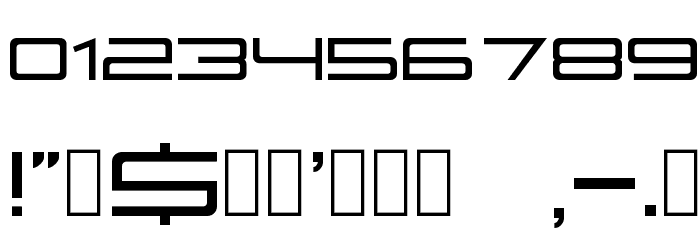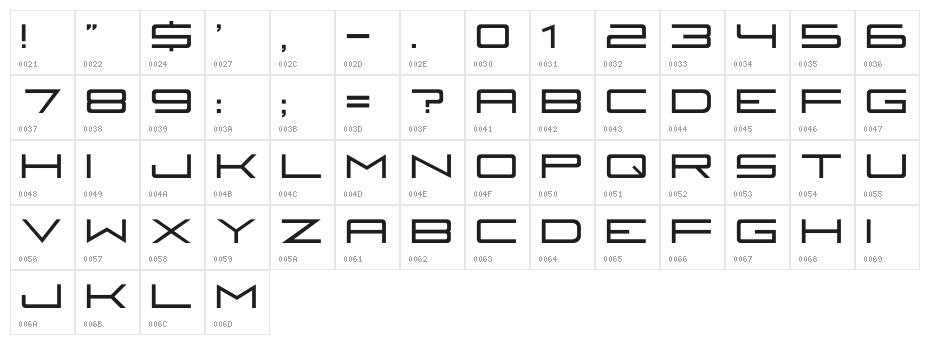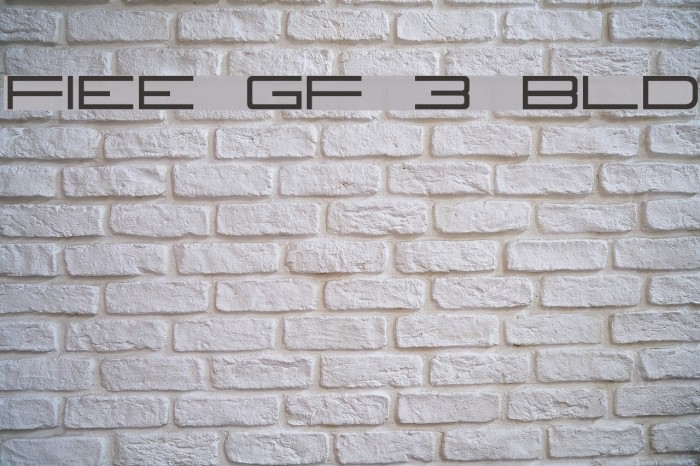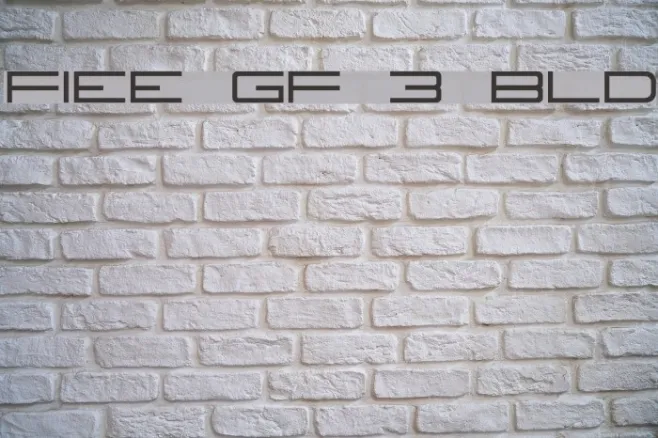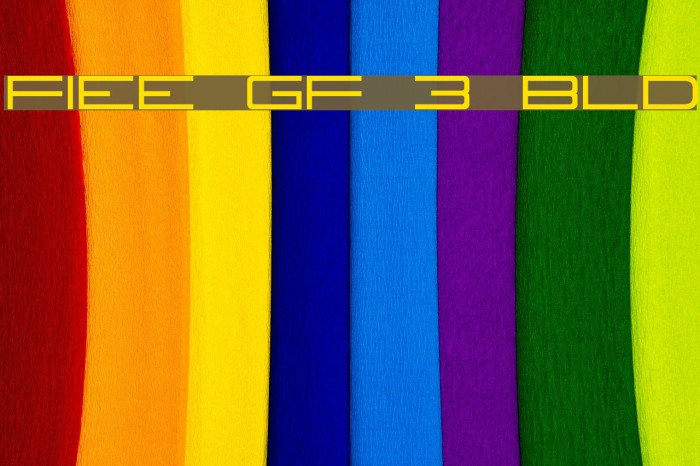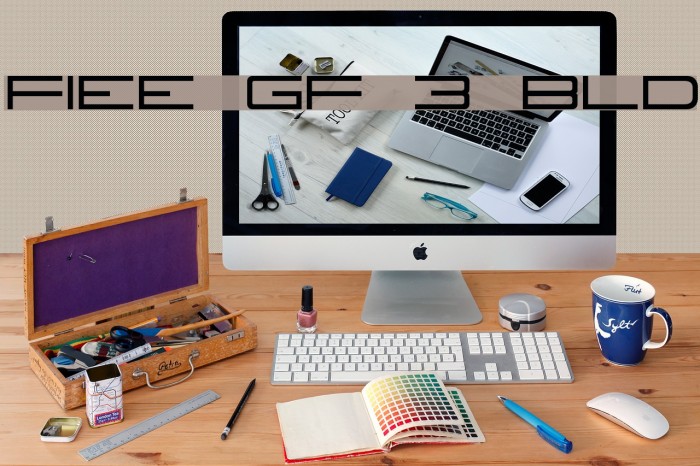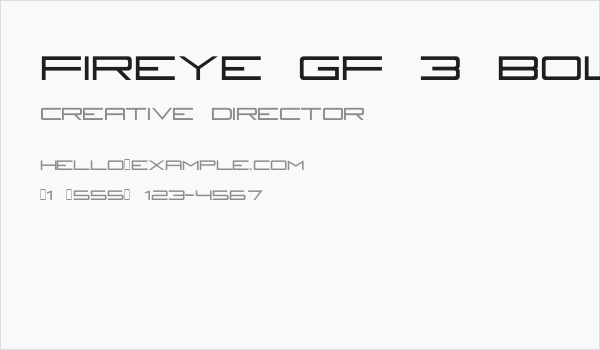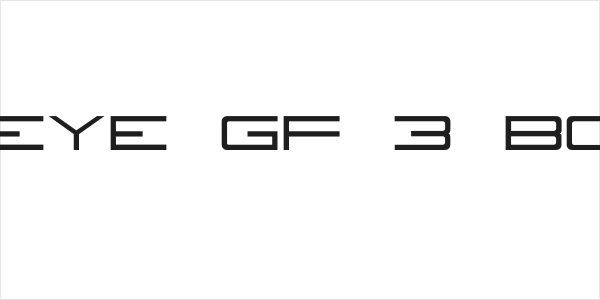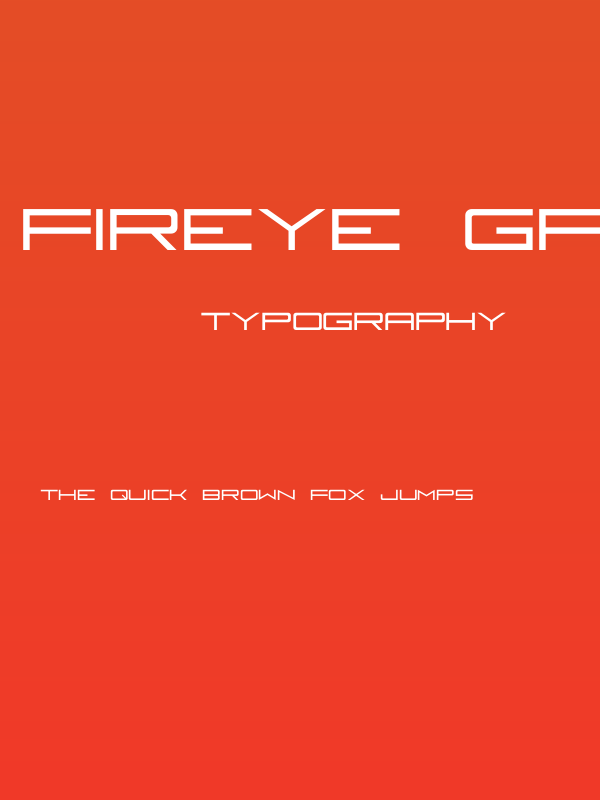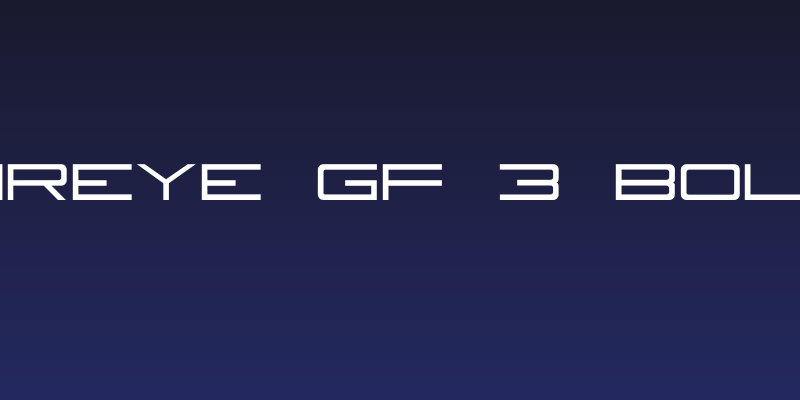
Fireye GF 3 Bold Font
Fireye GF 3 Bold Description
This font features a futuristic and geometric design, characterized by its angular and sharp edges. The uppercase letters are uniform in height, with a consistent stroke width that gives a clean and modern appearance. The lowercase letters maintain the same angular style, ensuring a cohesive look throughout. The numerals are distinct and easily readable, following the same geometric principles. Special characters are designed with a bold and striking appearance, making them stand out. Overall, this font exudes a sense of modernity and precision, ideal for projects that require a contemporary and tech-savvy aesthetic.
| Use Case | Logos, Headlines, Digital Interfaces |
| Proposed Projects | Ideal for technology branding, sci-fi themed designs, and modern digital interfaces. |